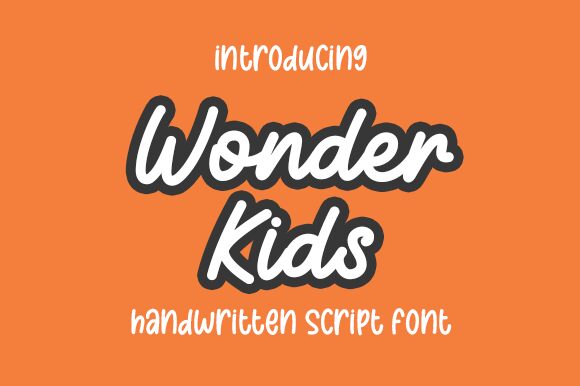
Wonder Kids is a playful and charming handwritten font designed by Nirmala Creative. With its semi-light weight, it adds a touch of whimsy to any project without overwhelming the eye. Perfect for children's books, greeting cards, and invitations, this font typeface captures the essence of childhood innocence with its hand-drawn style. Its versatility also makes it suitable for designing logos or social media graphics that require a touch of playfulness. Wonder Kids is sure to delight anyone looking for a fun and creative way to express their ideas!
Wonder Kids